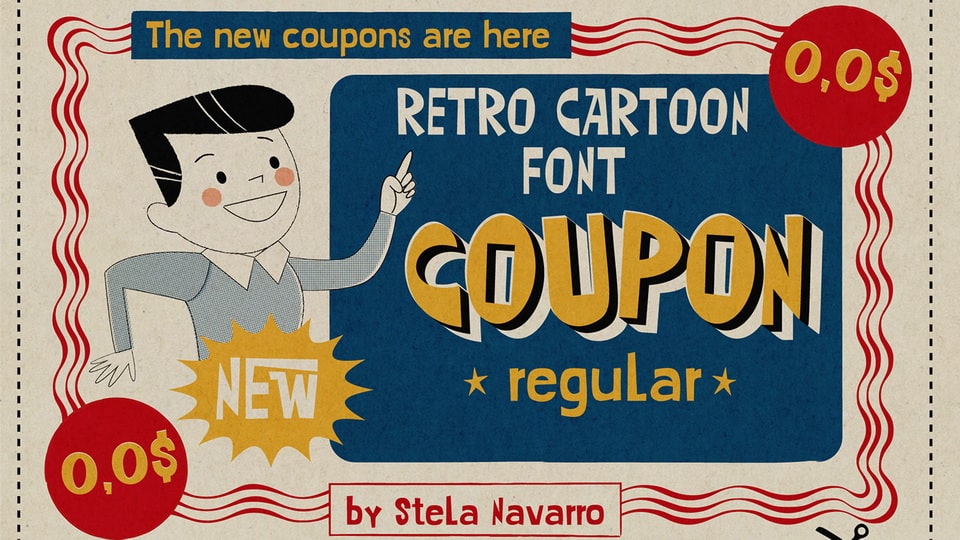
Coupon Font
Coupon is an absolutely new typeface in the style of the typography of the 50-60s. Includes signs, accents, ligatures. If you are a lover of vintage style, this font will be your favorite!